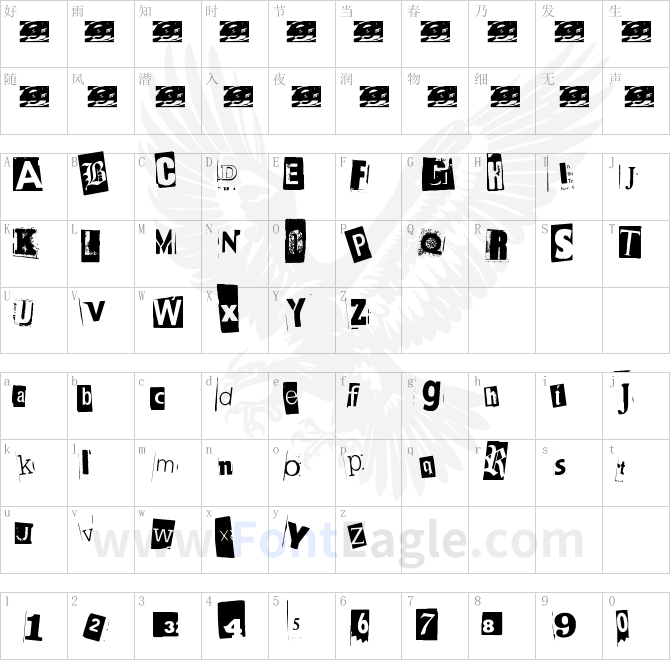
BlackCasper is a great font, widely used in graphic design, single-page menu design, poster design and other fields, and is deeply loved by designers.BlackCasper download.